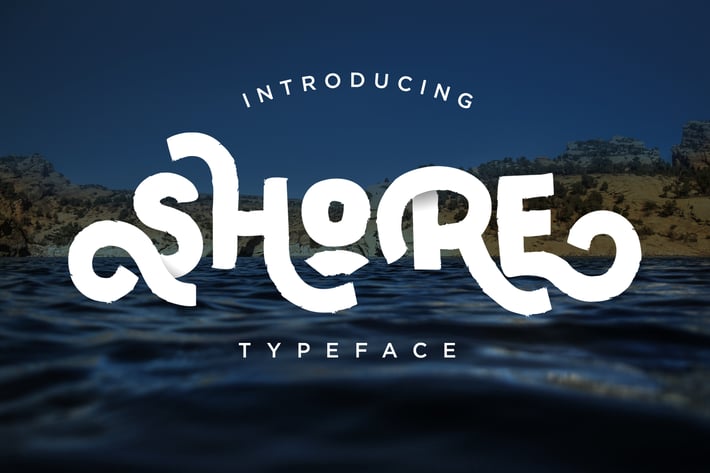
Shore Typeface
ShoreTypeface is handmade handlettering, which is combining modern and classic typography with some awesome features. In the font including Stylistic Alternates sets, Ligatures. OpenType features with Stylistic Alternates, Ligatures in some characters that allows to make awesome look. this is suit for : packaging, labeling, logo, classic shop, coffee shop, movie title, etc
Celestial Features :
Numerals & Punctuations
Accents (Multilingual characters)
Open Type featuring
Ligatures
Stylistic Alternates
ss01
ss02
ss03
ss04
ss05
ss06